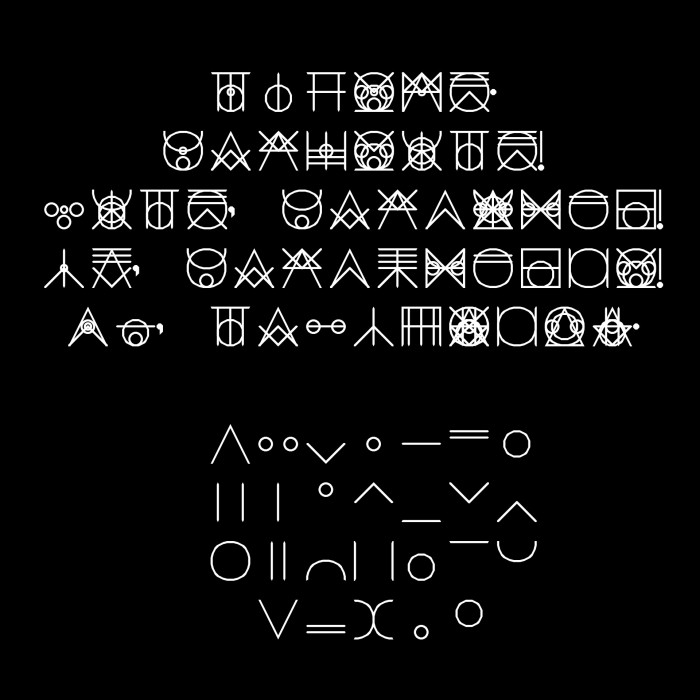
This font is a symbol builder. My inspiration is Kanji which has about as many strokes per word as English has letters per word. So the idea is to make each letter a stroke in a symbol.
The ASCII letters are all right-left symetrical symbol strokes.
I actually saw this font on another account, before you submitted it. It's a clone, am I right?
This is not a clone. This is original with me. I've been working on this one for over 20 years. So it is possible you saw an earlier version of mine.
20 years? Thats before Fontstruct (and me).
And me.
Anyway I'm sorry but it's very unlikely to me that this isn't a clone. I have several reasons.
-At very first, the reason stated by @XBox Gamer whome I salute by the comment.
-This isn't the first clone of this font I saw. I know it because I tried to do a font based on this font. But I gave up because the words with multiple same letters would be harder to read.
-This is the newest clone, according to its date of creation: September 28th.
-I haven't heard FontStructor was usable without an account, but according to yourself, and excluding the fact it wasn't existing yet, you could FontStruct since about 15-16 years before you joined it.
-I have peeked inside and it seems that your style is different than the overall font style. I mean, don't tell me you haven't just added accents and symbols like (c), (r) and tm.
I'm really sorry but I mean it, it's very unlikely this isn't a clone.
And it's kinda unsmart to claim a clone as your original content, even if you worked hard on copying the glyphs so it wouldn't tell you cloned it.
To show you that this isn't a clone I have now made some of my previous attempts public - thematrix001, thematrix003, and Symbol Builder 1. Symbol Builder 1 was a clone of Alphabetic Kanji. I made that to show my progress on Alphabetic Kanji with a name that I thought might be more appealing since I don't know how to rename fonts in Fontstruct. That may be the reason for your confusion. I was working on this font over twenty years ago in Fontastic on my Mac SE.
I'm sorry but it's still hard to believe this took 20 years to make...
However the rest actually seems legit so.. I guess I have to believe you.
Wheres thematrix003?
Actually THEMATRIX03, I put in too many zeroes
I dont see thematrix03 on the list...
THEMATRIX03 used the same weight lines for both lower and upper case. I finally decided I did not like it because all of the letters were left of the zero line so you had to put a space before the first word each time. I made THEMATRIX03 so that both upper and lower case letters were the same weight. THEMATRIX01 had the lower case letters thin and the upper case letters bold, and this looked pretty ugly. So THEMATRIX03 put a line above all upper case letters. Of course this got in the way of diacritics.
Alphabetic Kanji fixes both problems. Letter are now all to the right of the zero line, and upper case letters are now indicated with a small circle in the center of each. I put a small circle there because that was space that no letters were using, so that no matter how many letters in a word, the created the user could see symbol would see that at least one letter was upper case.
@XBox Gamer
Don't worry, the fonts he's mentioning are legit, I checked them.
@Jonrgrover
Nice, however I noticed a flaw with your font. The problem comes to the lack of hints for the placement of the letters (evil/live or angle/angel), and also for the double-letters (such as to/too). A word can easily be mistaken because of those two factors.
I agree. the evil/live/veil/vile problem is a serious flaw. I have tried for a long time to resolve it by doing things like tiny amounts of spacing and such, but the results were not good. The best solution I have found is to include a tilde in between one half of the word the the next. So to spell evil:   ev~il. The font will divide the word in two and put a hyphen between them to connect them. I know this solution is not too good.
Most of the time however I just treat multiple words with the same letters as 'spelling-homonyms'.
righteousness is a bit hard to read, as is godness. The G has a lot of ink. Maybe the S and G together make things look complicated.
i find your script to be ingenious. it's not easy to read and certainly deserves the "cryptic" tag, but the idea is very inspired nonetheless.
this isnt japanese kanji, it's just random symbols